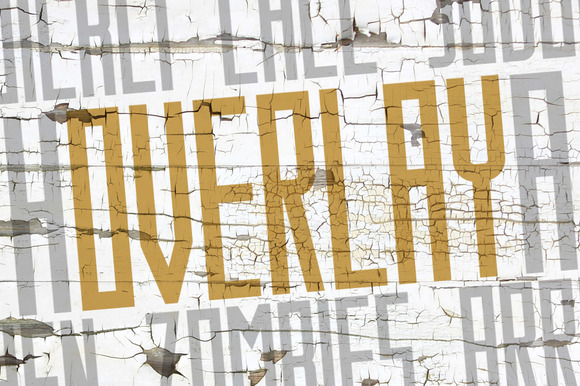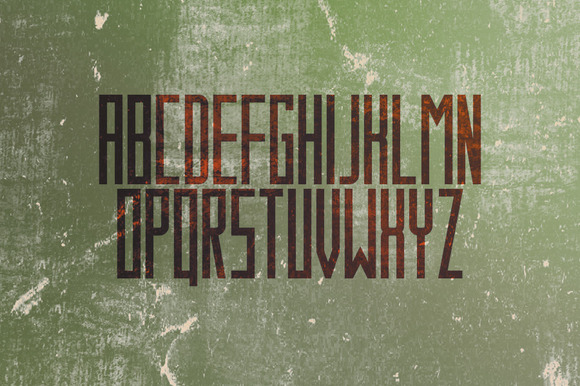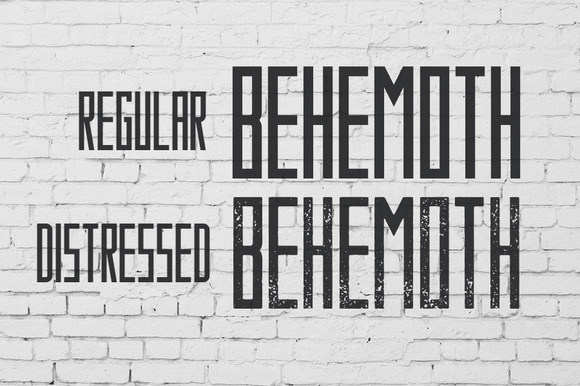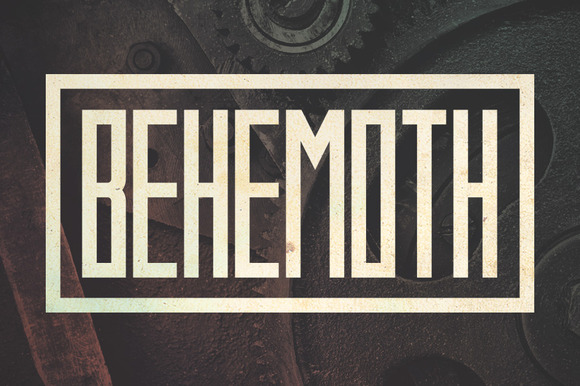
Behemoth Typeface
Behemoth is a tall and blockly display typeface in 2 styles. It’s great for posters, titles and any location where you need a large text but have a tight space. It includes uppercase letters, numbers and some punctuation.